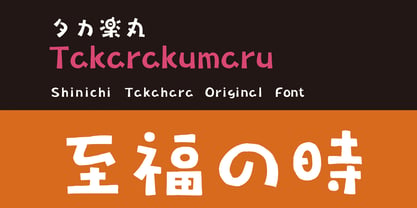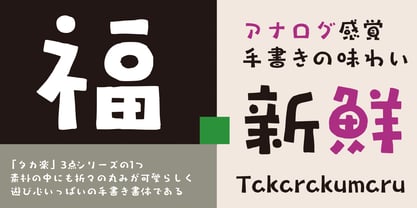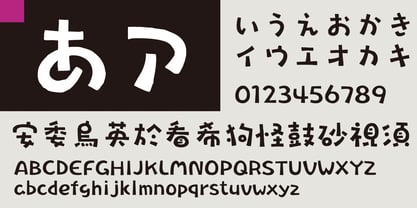
Takarakumaru
This is one of the three “Takaraku” series, which is fun and playful. It is a cute and fun handwritten typeface that uses roundness in its gentle framework and elements.